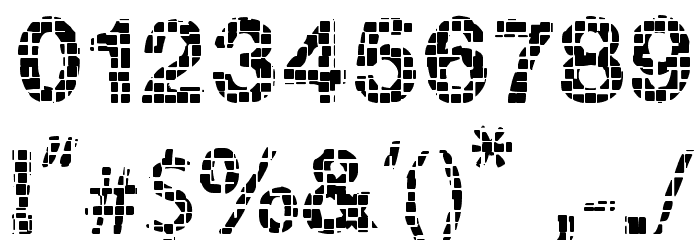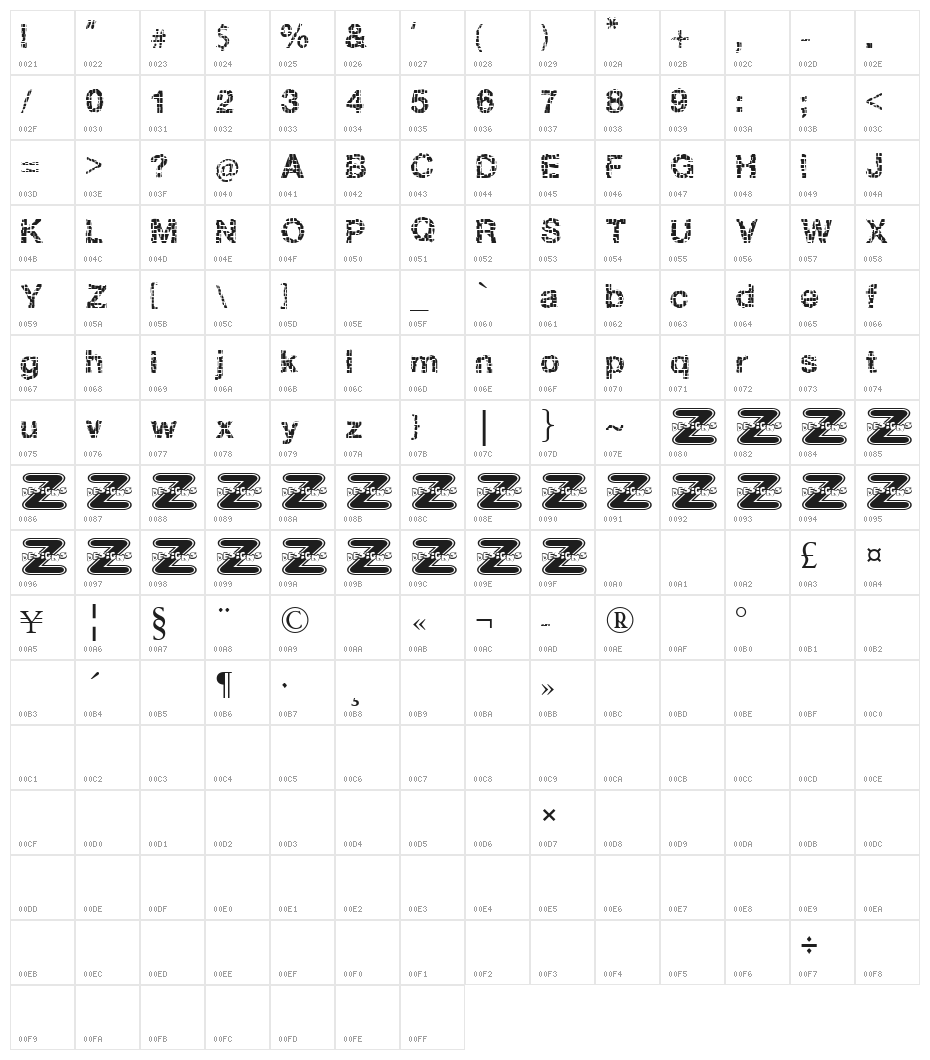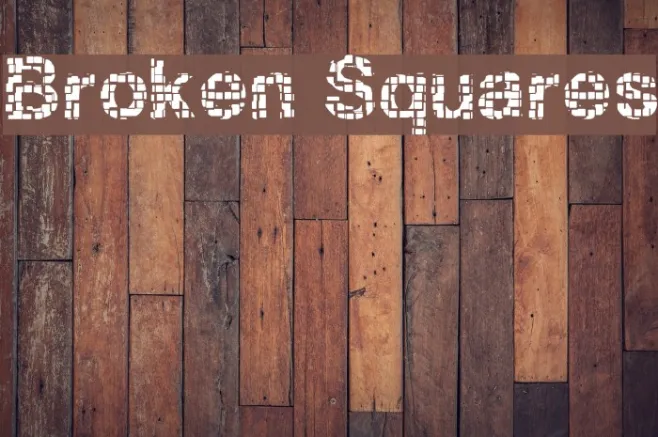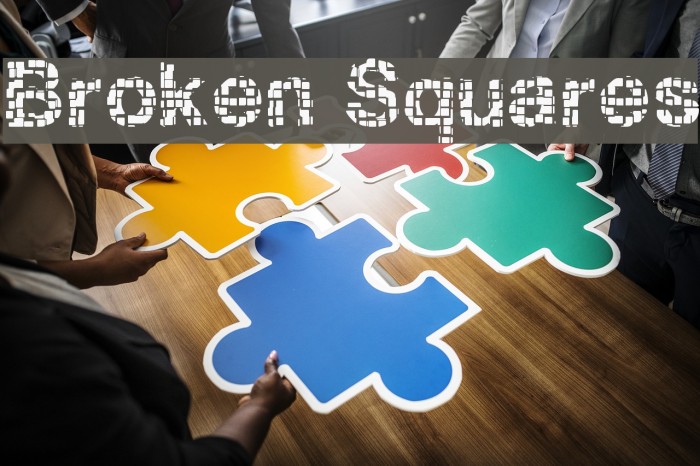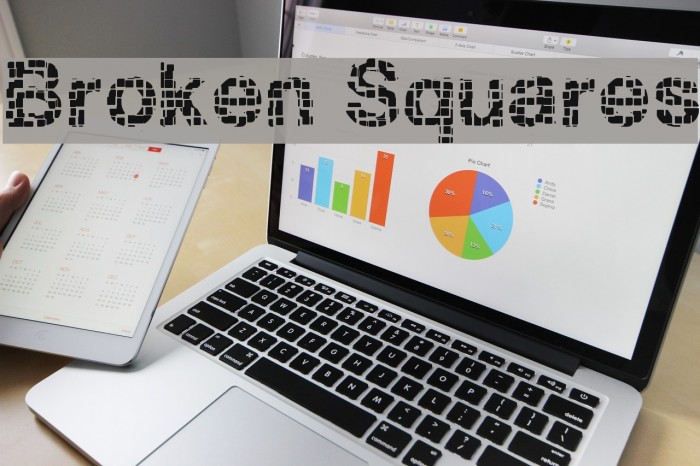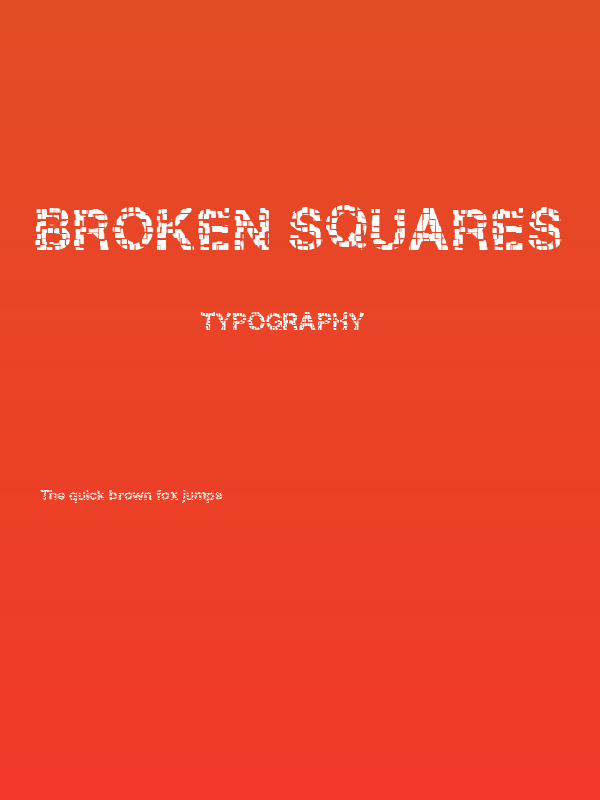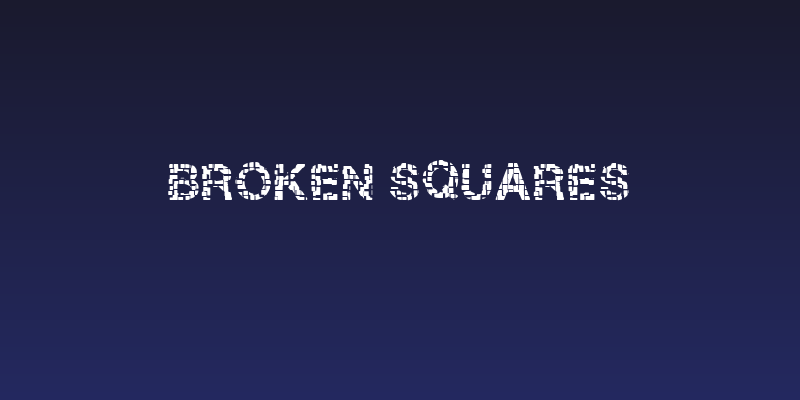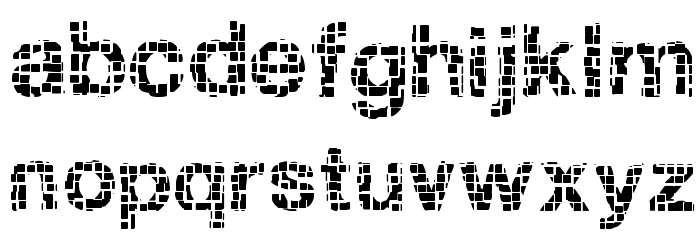
Broken Squares Font
Broken Squares Description
This font features a unique and eye-catching design with characters composed of broken square patterns. The geometric style gives it a modern and digital feel, making it stand out in any design project. Each letter and number is crafted with precision, maintaining readability while offering a distinct visual texture. The font includes a full set of uppercase and lowercase letters, numerals, and a variety of special characters, ensuring versatility for different uses. The fragmented appearance adds a dynamic and innovative touch, perfect for projects that require a bold and unconventional look.
| Proposed Projects | Ideal for digital art, tech branding, posters, and modern graphic design projects. |